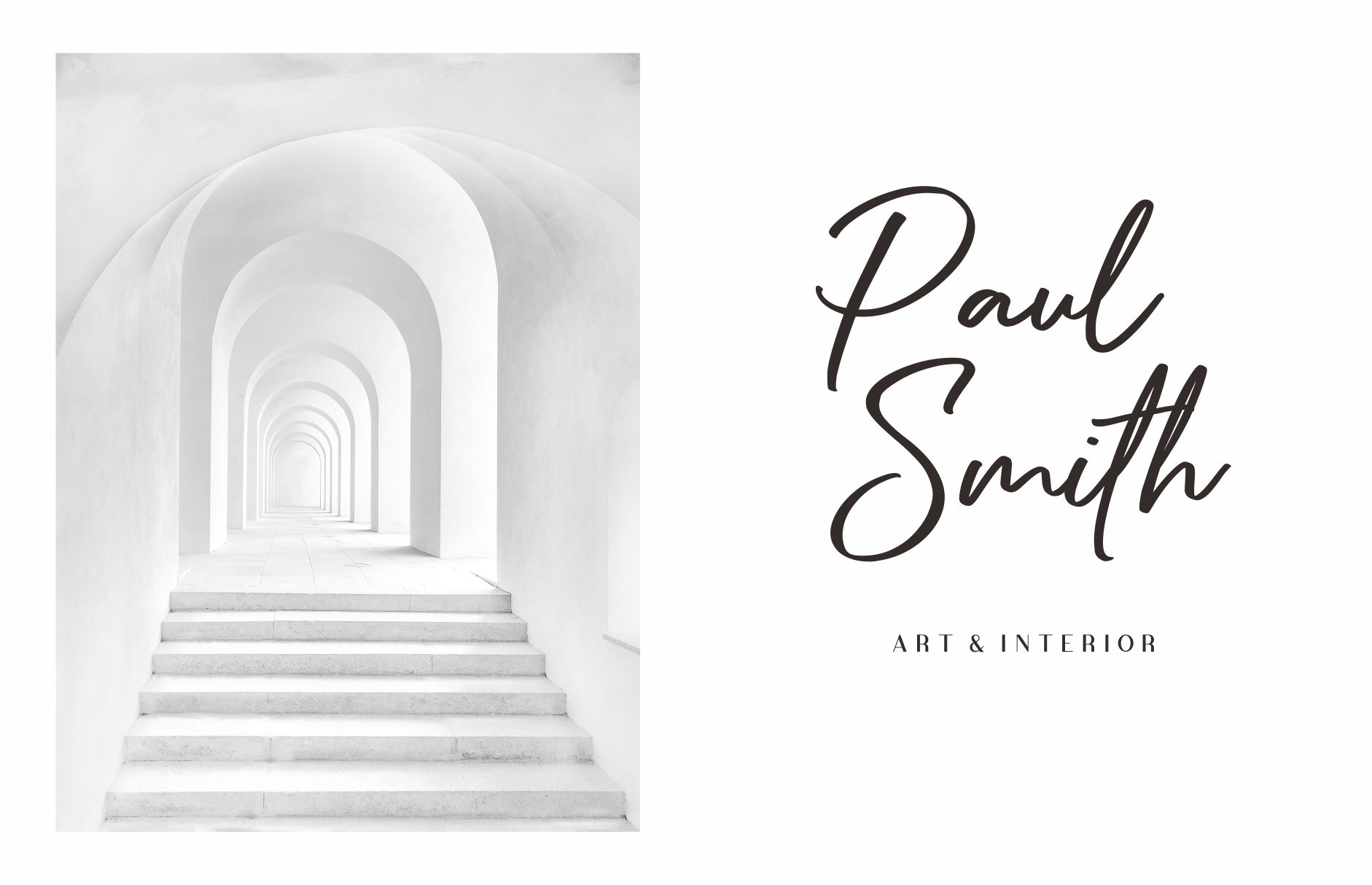
Amabillis Handwritten Font
This calligraphy harmony gives the impression of being luxurious, free and sophisticated.
Amabillis contains opentype features such as stylistic alternates, swashes & ligatures. Perfect for logo, printed quotes, badges, insignia, packaging, headline, poster, t-shirt / apparel, greeting card, and wedding invitation, & etc
Introducing Amabillis Handwritten Font
Amabillis – Handwritten Font if you believe in your own strength, you’re Berdiolla. This calligraphy harmony gives the impression of being luxurious, free and sophisticated.
Amabillis contains opentype features such as stylistic alternates, swashes & ligatures. Perfect for logo, printed quotes, badges, insignia, packaging, headline, poster, t-shirt / apparel, greeting card, and wedding invitation, & etc
Features:
• Standard Ligatures
• Stylistic Sets
• Numerals and Punctuation